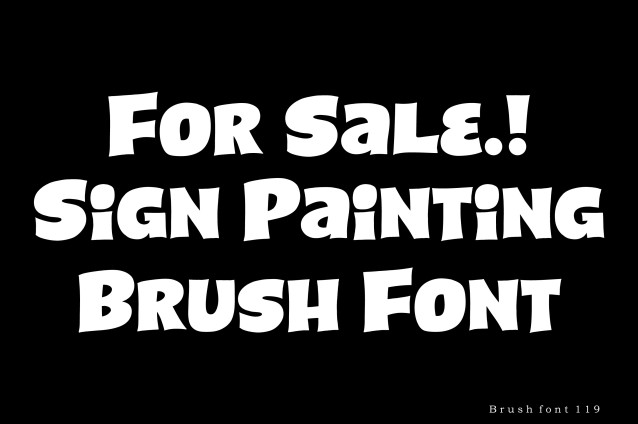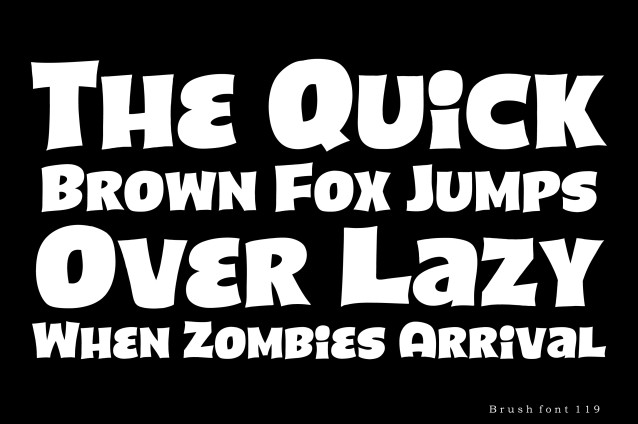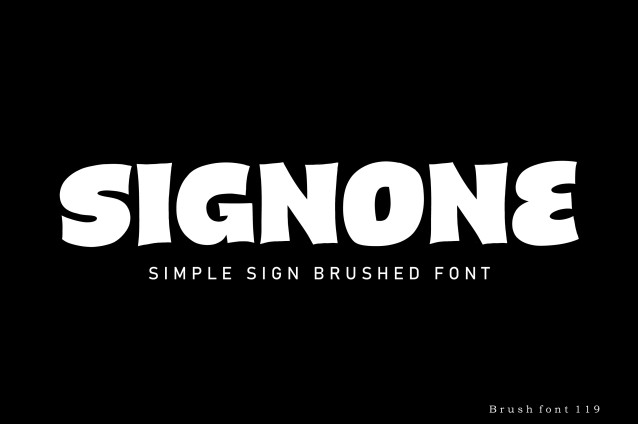
Sigenone Font is a simple and modern display font suitable for quotes, logos, headings, titles, and many more. Use it on any of your creative projects, and your designs will become outstanding!
| Designer Name: | AZSType |
| Classification: | Display Fonts, Modern Fonts |